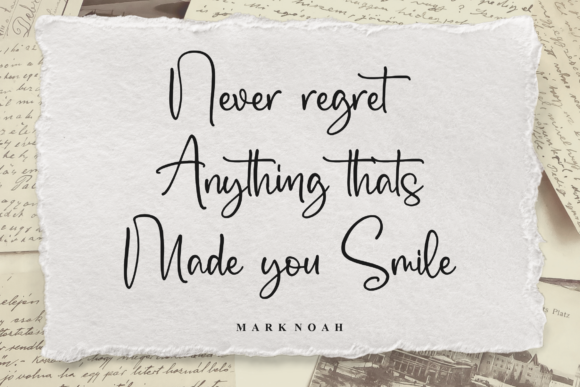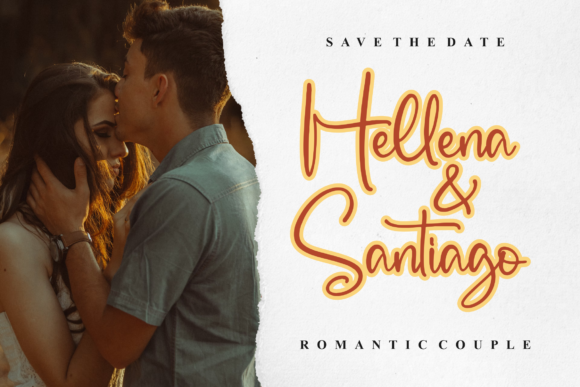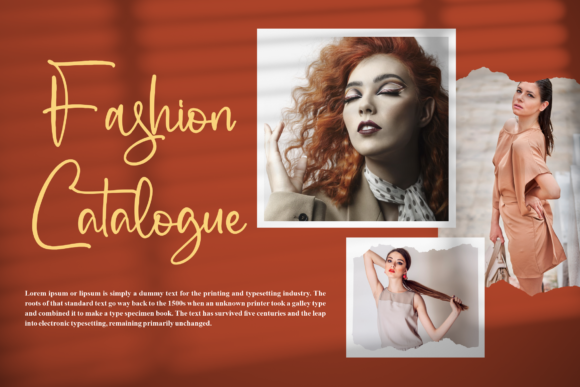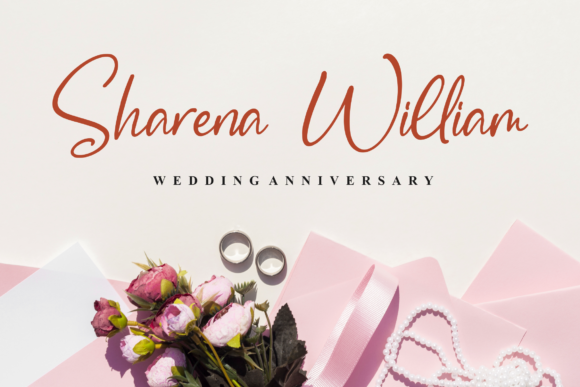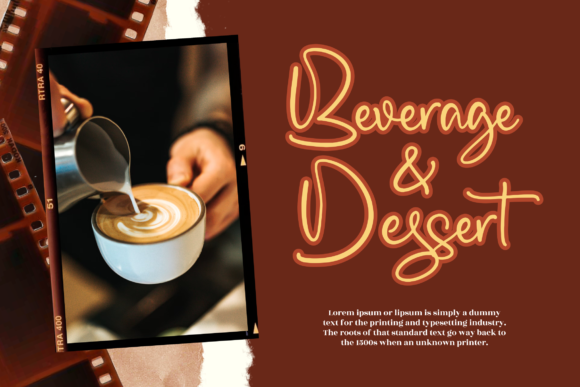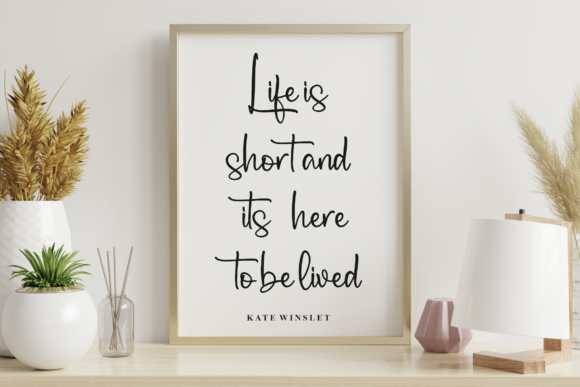
Austin Texas Font: Elevate Your Design with Elegant and Curvy Lines
Are you tired of using the same old fonts for your design projects? Look no further than the Austin Texas Font, a superb handwritten font that will make your work stand out from the crowd. With its elegant and curvy lines, this font is perfect for a variety of applications, including product packaging, branding projects, magazine covers, social media, wedding designs, and more.
What Makes Austin Texas Font So Special?
The Austin Texas Font is a unique and stylish font that is sure to add a touch of sophistication to any design project. Its elegant and curvy lines give it a distinctive look that is both modern and classic. The font is highly versatile, making it suitable for a wide range of applications, from formal and professional designs to more creative and playful ones.
Whether you’re a designer, crafter, or DIY enthusiast, the Austin Texas Font is a great addition to your toolkit. The font is easy to use and can be applied to various design projects, such as:
- Product packaging: Add a touch of elegance to your product packaging with the Austin Texas Font. It’s perfect for labels, tags, and other packaging materials.
- Branding projects: Create a consistent brand image with the Austin Texas Font. Use it for logos, business cards, and other marketing materials.
- Magazine covers: Make your magazine cover stand out with the Austin Texas Font. Its elegant and curvy lines will grab the attention of readers.
- Social media: Use the Austin Texas Font to create engaging social media graphics, such as quotes, posters, and flyers.
- Wedding designs: Add a touch of romance to your wedding designs with the Austin Texas Font. It’s perfect for wedding invitations, programs, and other wedding materials.
Key Features of Austin Texas Font
The Austin Texas Font has several key features that make it a great choice for designers and crafters:
- Elegant and curvy lines: The font’s elegant and curvy lines give it a distinctive look that is both modern and classic.
- Highly versatile: The font is suitable for a wide range of applications, from formal and professional designs to more creative and playful ones.
- Scalable: The font is scalable, making it perfect for use in various design projects, from small to large.
Tips for Using Austin Texas Font
Here are some tips for using the Austin Texas Font in your design projects:
- Pair it with other fonts: The Austin Texas Font pairs well with other fonts, such as sans-serif fonts. Experiment with different font combinations to create a unique look.
- Use it for headings: The Austin Texas Font is perfect for headings and titles. Use it to add a touch of elegance to your design.
- Experiment with colors: The Austin Texas Font looks great in various colors. Experiment with different colors to find the one that works best for your design.
The Austin Texas Font is a superb handwritten font that will elevate your design projects with its elegant and curvy lines. Its versatility, ease of use, and scalability make it a great choice for designers and crafters of all levels. Whether you’re working on a product packaging, branding project, magazine cover, social media graphic, or wedding design, the Austin Texas Font is sure to make your work stand out from the crowd.